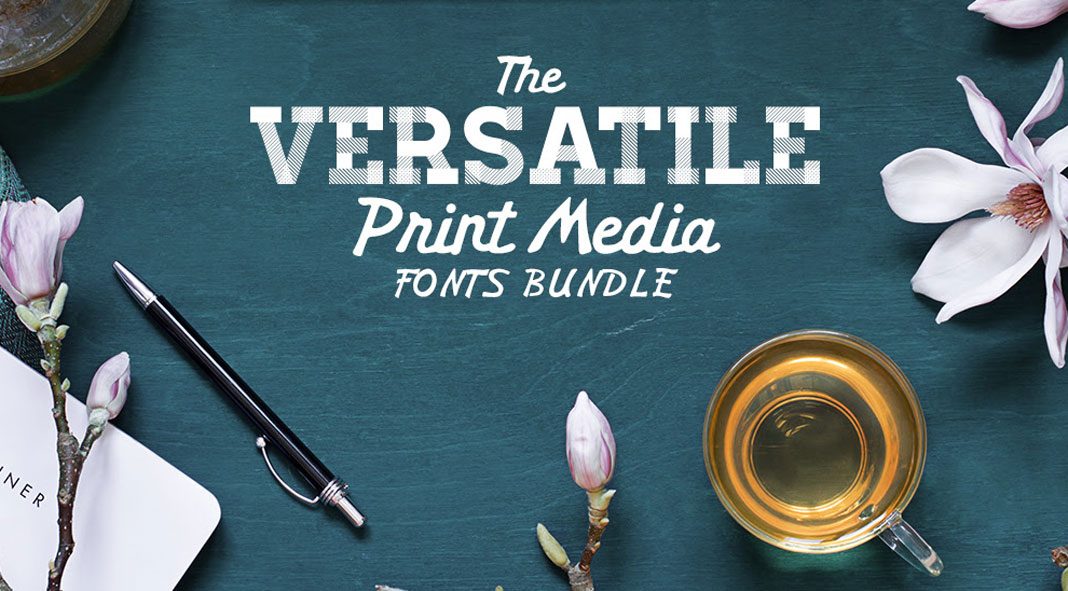
127 print fonts from 64 font families—created by different talented type designers.
The friendly people at Pixelo have published another highly reduced font bundle. This time, they teamed up with amazing designers from around the globe to bring you a fonts bundle focusing on typefaces that are mostly intended for the use in print media. Consisting of 127 fonts from 64 individual font families, this bundle will help you to take your print designs on another level. All included fonts support multiple languages and come with a commercial license. Learn more below or click on the following link to grab this time-limited deal.
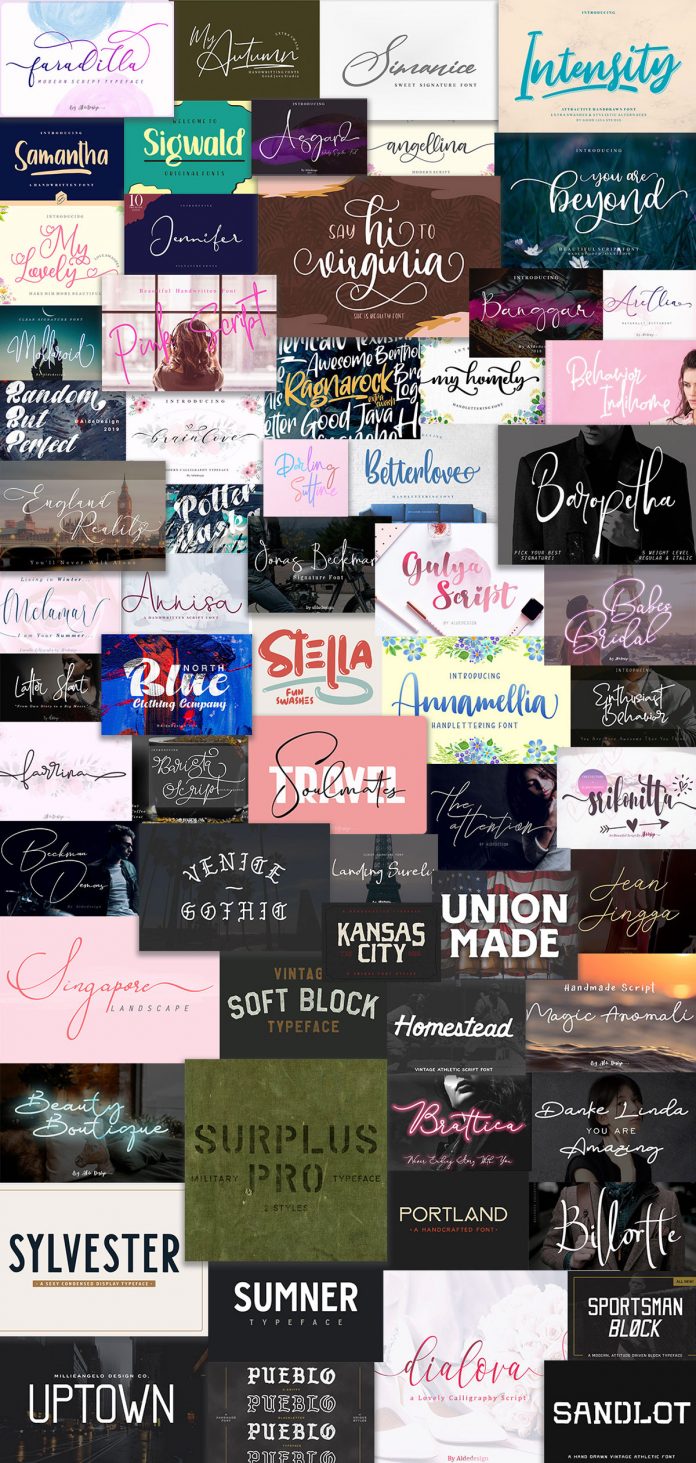
What do you get?